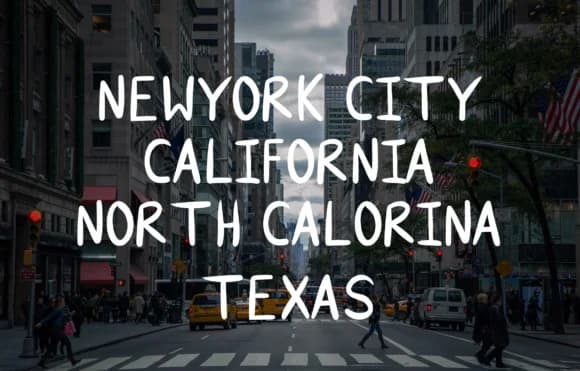
Dusker by Laks Mi is a playful handwritten script that captures the authentic charm of children's handwriting with contemporary appeal. This font brings a youthful, approachable character to any project that needs warmth and personality, making it especially suited for creators working in the kids' market. The natural letterforms work wonderfully for children's book covers and illustrations, where the font's friendly aesthetic immediately connects with young audiences. Educational designers find it ideal for activity book headers and learning materials that benefit from an encouraging, relatable voice. For those creating nursery wall decals or playroom signage, Dusker delivers the nostalgic, handmade feel that parents seek when decorating children's spaces. Event planners and stationery designers also appreciate this font for kids' birthday party invitations and greeting card designs, where the informal elegance sets a celebratory tone. Dusker's accessible character extends beyond children's products too, scrapbookers, journalers, and creative professionals use handwritten scripts like this one to add genuine human touch to digital and print projects. The font's authentic feel resists looking overly polished or corporate, making it a natural choice for any brand or project that needs to feel genuine and approachable. You can add Dusker to your creative toolkit exclusively on Creative Fabrica.
Dusker Font is a script font that shines as a display or heading face. Pair it with a clean sans-serif or serif font for body text — the contrast creates a clear hierarchy while the two styles stay balanced and easy to read.
Dusker Font
by Laks Mi